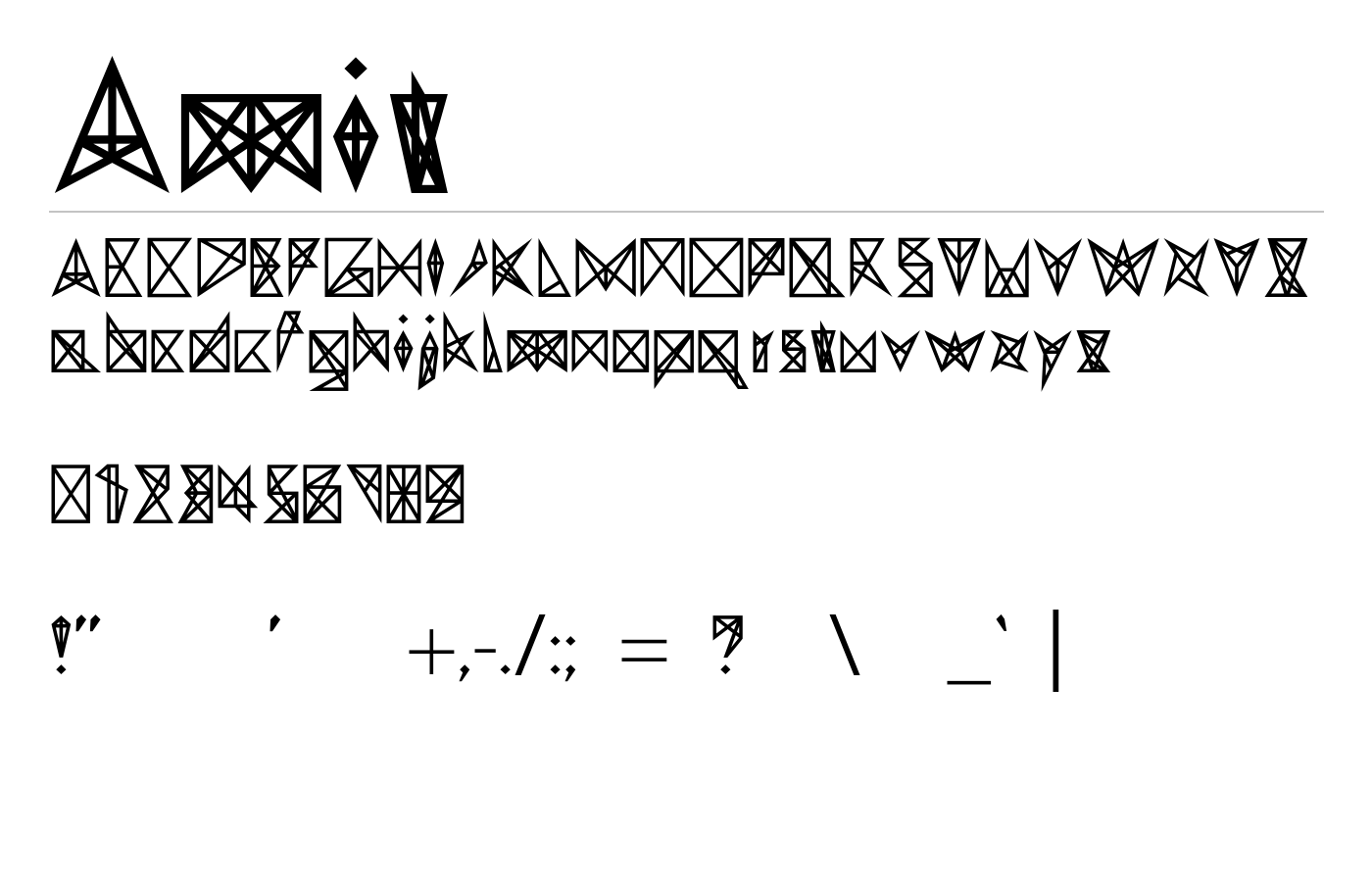
Amit Font is a highly decorative, geometric display typeface with sharp, angular lines forming intricate patterns within each character. Its condensed and bold structure creates a futuristic and abstract feel, making it ideal for striking headlines, logos, or artistic projects where a unique, avant-garde style is desired. This font works best in creative branding or poster design that requires a standout, visually complex look.
Amit Font
About Amit Font
| Font family | Amit Font |
| Designer | Timothy GAO ( GAO Weishan ) |